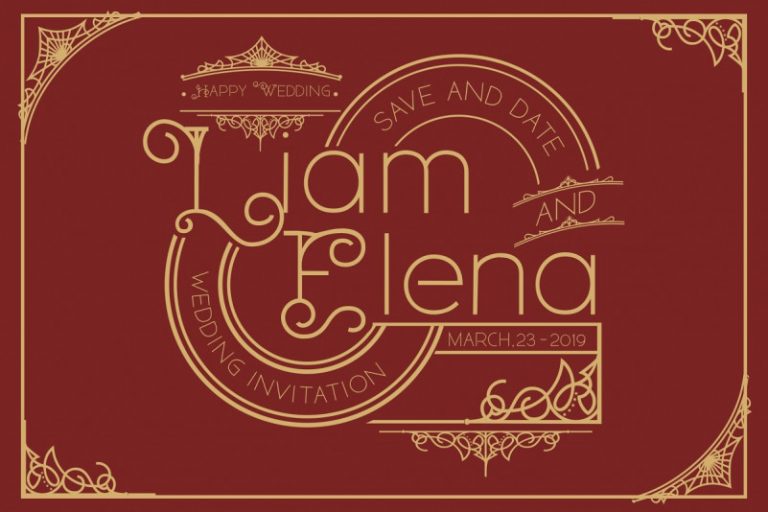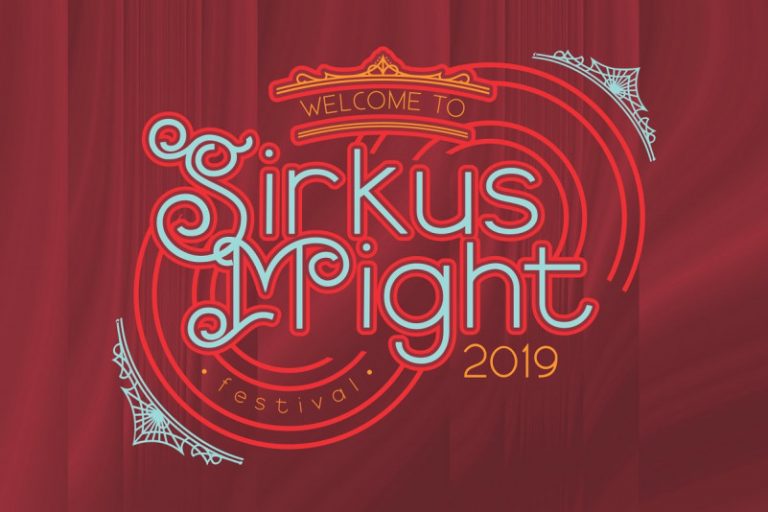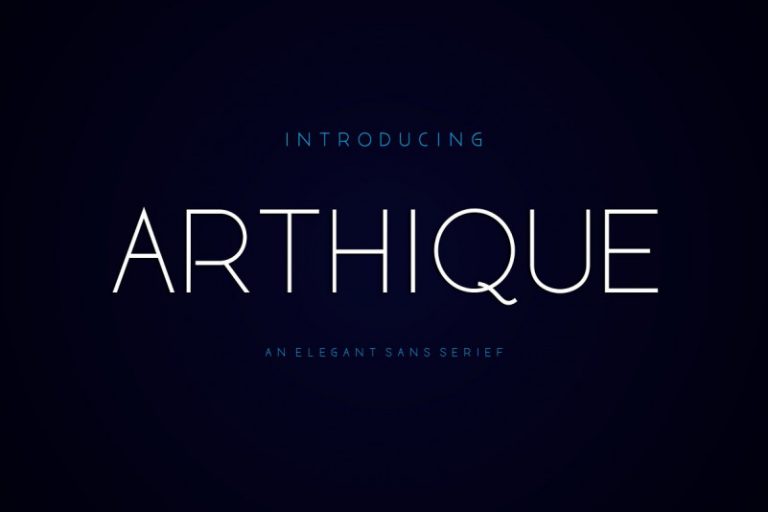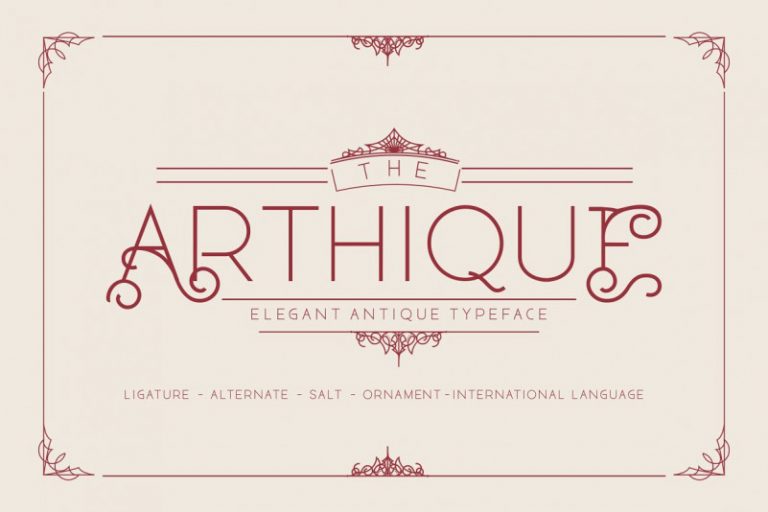
Arthique Elegant Font
Hello friend! Introducing Arthique Typeface! It is was designed and shares by SheillaType Store. Arthique Font represents antique and artistic words, is a thin and standard sans serief font, so this font has the style of ELEGANT and ANTIQUE characters because in the alternative UPPERCASE the font changes to Ornamental on each letter character. designs that require ELEGANT fonts, Logo Design, Fashion, Boutique, Letterhead, and other graphic needs.